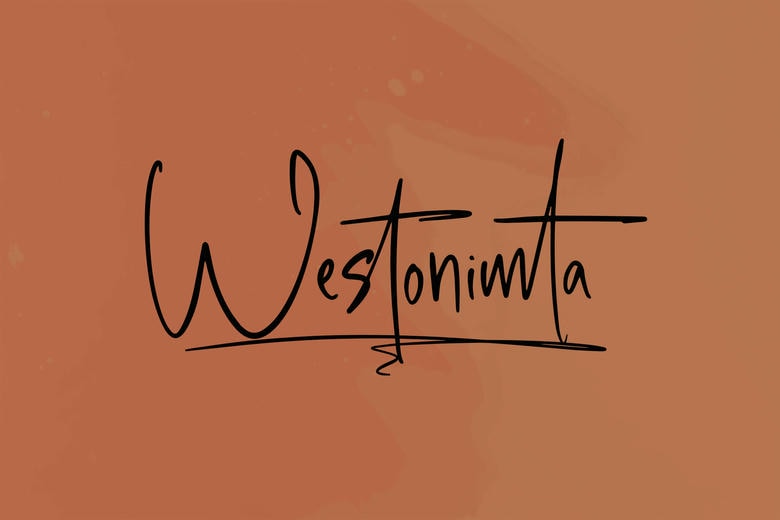
Westonimta Font
Westonimta is a modern handwriting font that has a modern look that has been accompanied by the beautiful and unique letter shapes of handwriting fonts for projects. It is proficient in various areas such as branding, logo designing, packaging, and sharing contents through the leading social media platforms. Such modification often means real-time and up-to-date work can be made on the font of the particular style.
Westonimta Handwritten Font